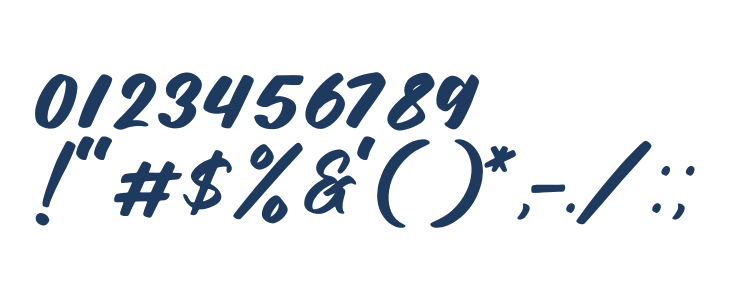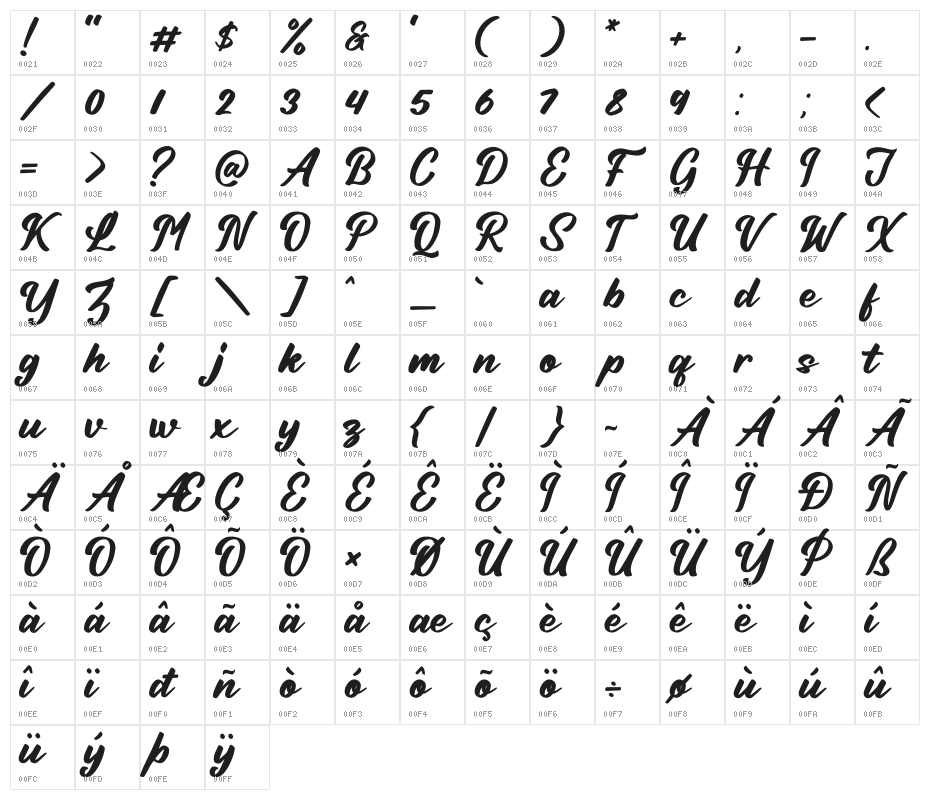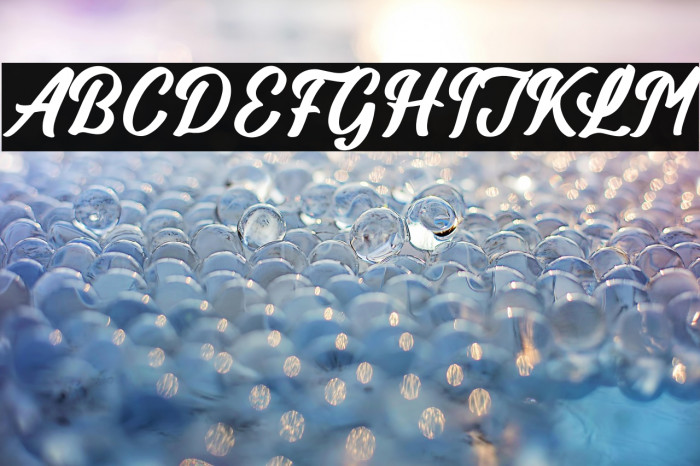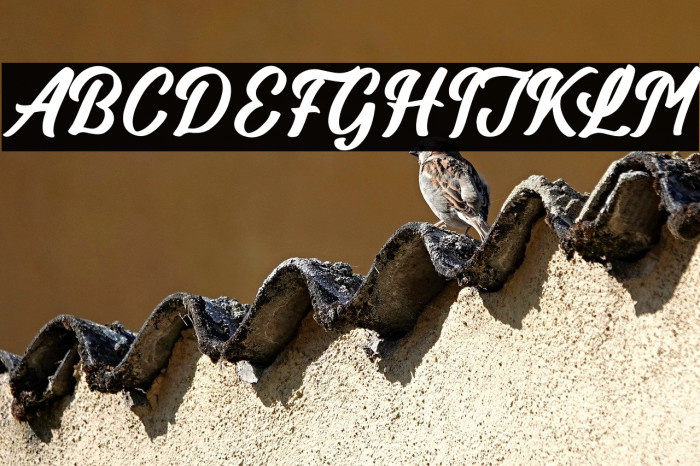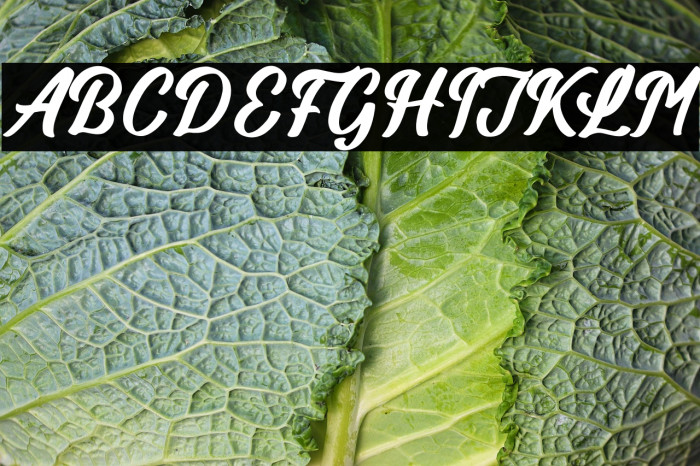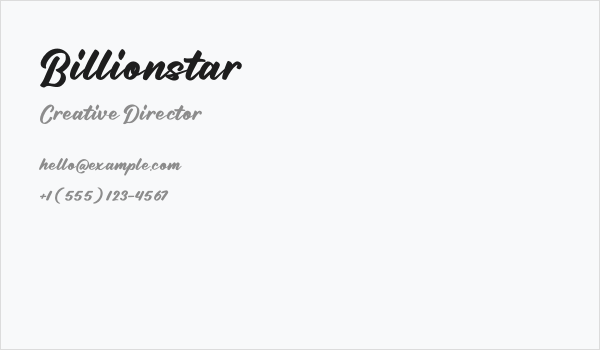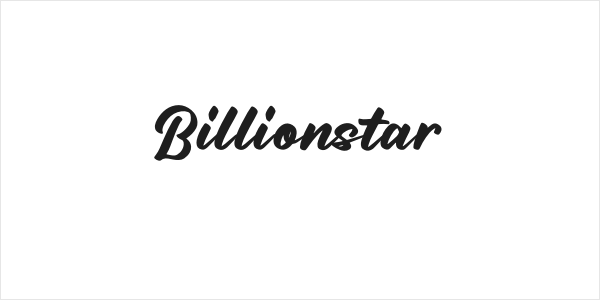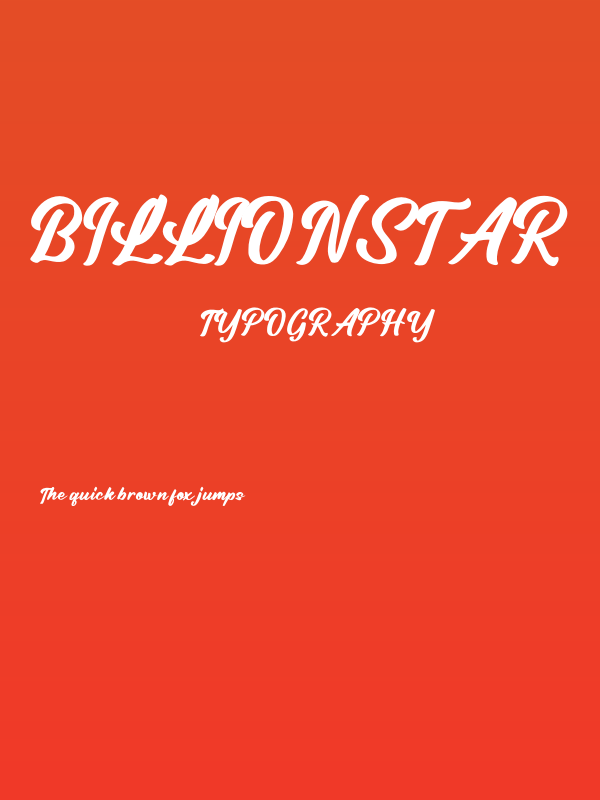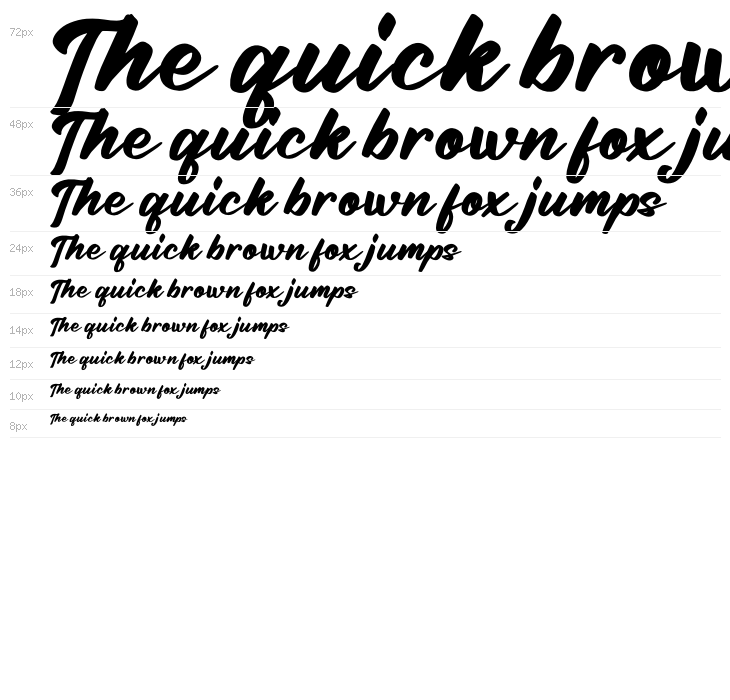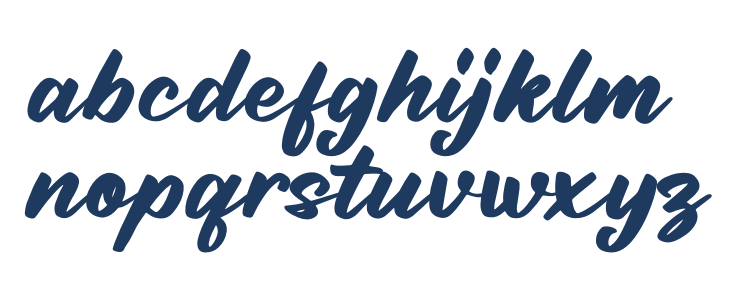
Billionstar Font
Billionstar Description
This font features a bold, cursive style with a flowing, handwritten appearance. The uppercase letters are elegantly slanted, giving a sense of motion and fluidity. The lowercase letters maintain a consistent style, with smooth curves and a slightly exaggerated flair on certain characters like 'g' and 'y'. The numerals are bold and rounded, complementing the overall aesthetic. Special characters are designed to match the cursive style, ensuring a cohesive look across all text. The font's boldness and dynamic strokes make it stand out, while its cursive nature adds a touch of sophistication and elegance.
Use CaseLogos, Headlines, Invitations
Proposed ProjectsIdeal for branding, invitations, greeting cards, and logo design.